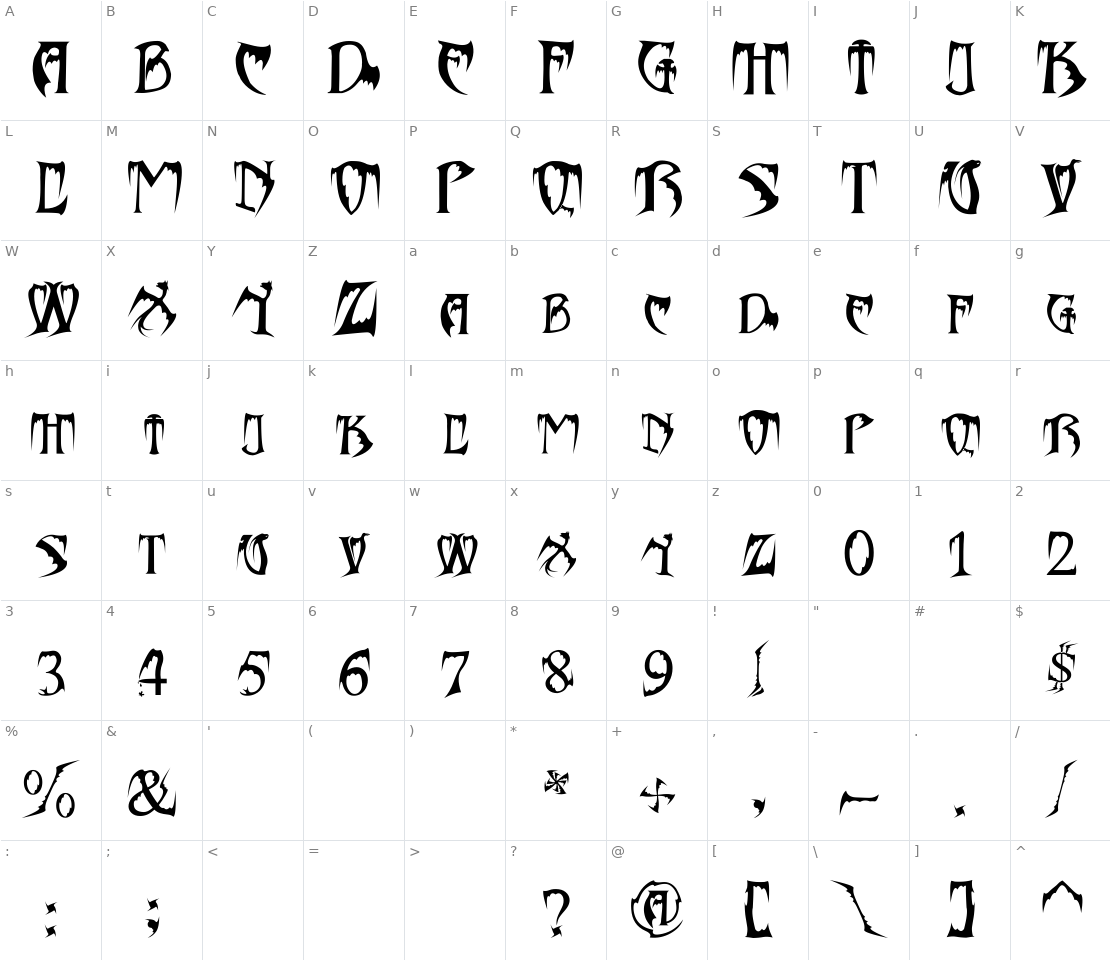
Bats & Dragons - Abaddon
by G/Hildt
Bats & Dragons - Abaddon is a spiky, Gothic-flavored novelty face from G/Hildt where every letterform bristles with sharp, dragon-scale details and medieval menace. The decorative strokes are dense and aggressive, leaning hard into dark fantasy territory. Built for headlines, chapter titles, or anything that needs to look like it was carved into the gate of a cursed fortress.